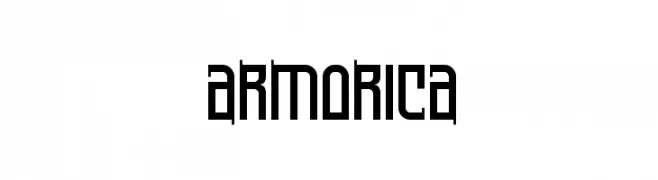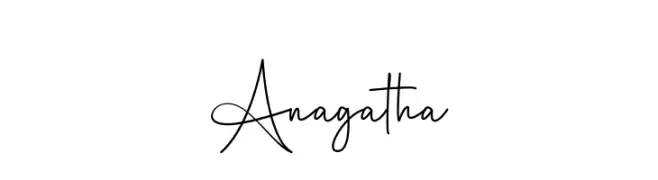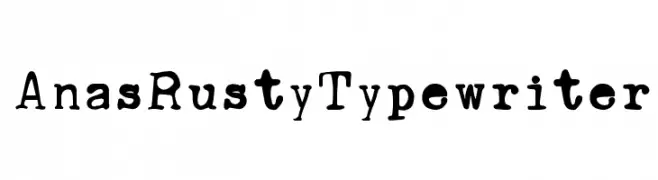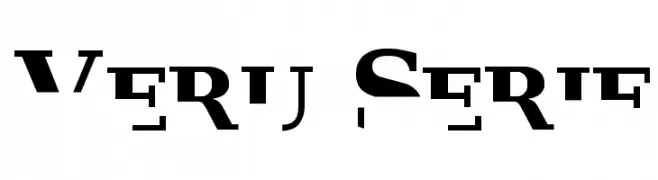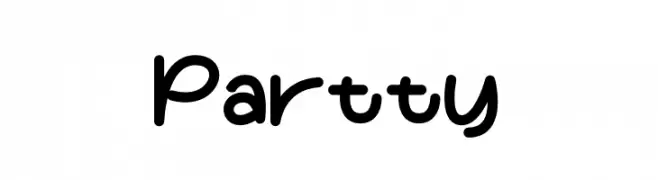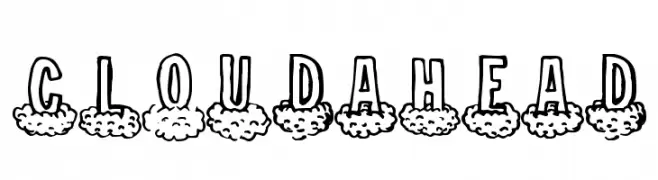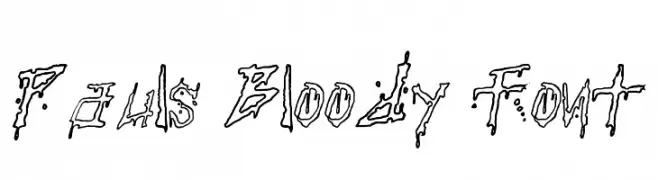
A bold, geometric font with a modern, tech-inspired design.
A bold, distressed font with a vintage, industrial feel.
Casual handwritten cursive font.
A bold, modern serif font with angular serifs and strong strokes.
A playful, rounded font with a hand-drawn, whimsical style.
A playful, cloud-themed decorative font with bold, outlined letters.
A horror-themed font with dripping, jagged edges and a chaotic style.